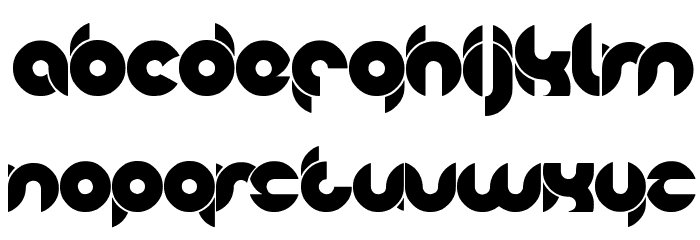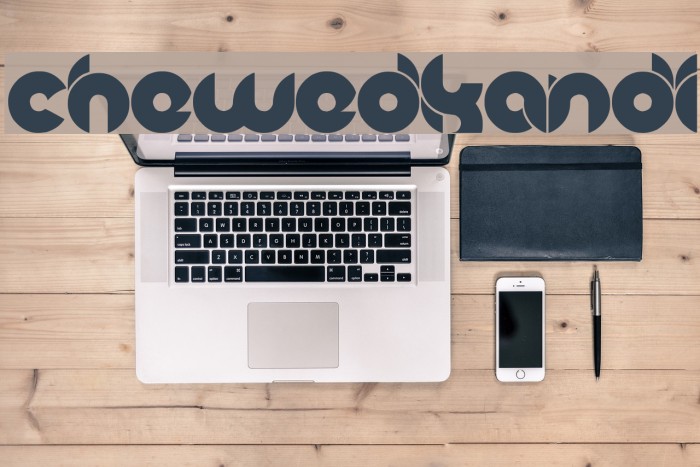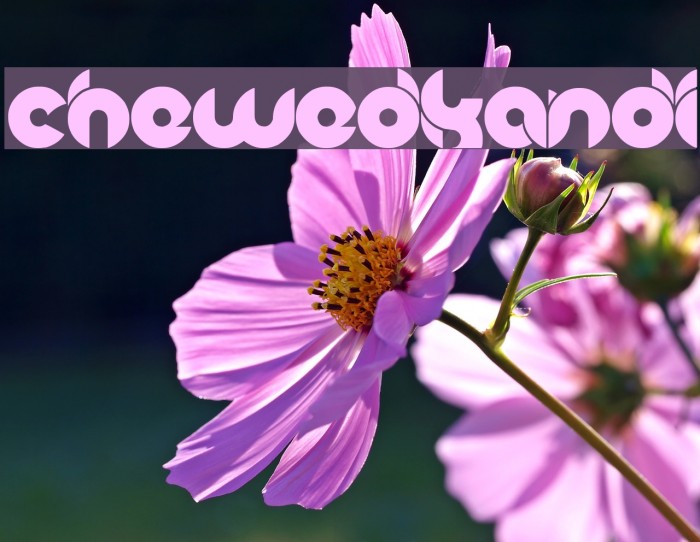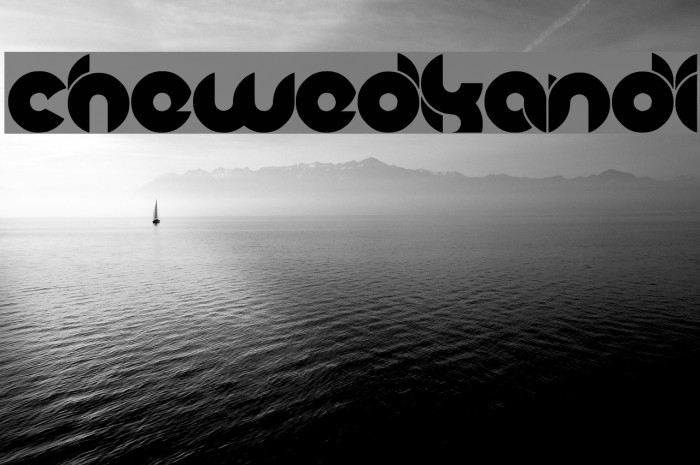
chewedkandi Font
This font features a bold and geometric design with a futuristic flair. Each character is constructed with thick, circular strokes and sharp angles, creating a unique and eye-catching appearance. The letters are highly stylized, with a consistent use of negative space that adds to the overall modern aesthetic. The uppercase and lowercase letters maintain a cohesive look, while the numbers and special characters follow the same design principles, ensuring uniformity across the typeface. This font is ideal for projects that require a strong visual impact and a contemporary feel.
A bold, geometric font with a futuristic and modern design.
- Proposed Projects: Ideal for branding, posters, album covers, and any project needing a modern, impactful look.